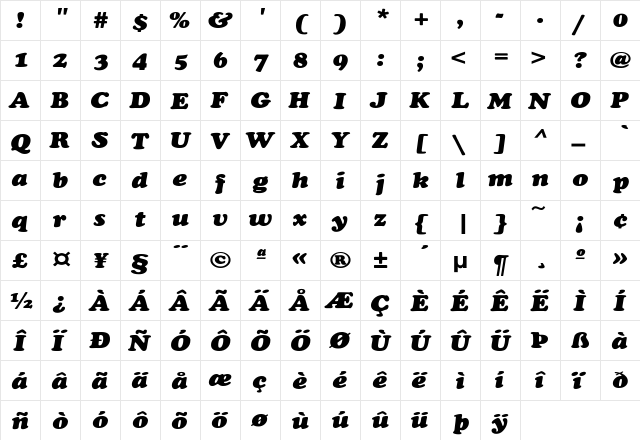
ChaceyExt-Heavy-Italic Regular
Design Context for ChaceyExt-Heavy-Italic Typeface
ChaceyExt-Heavy-Italic offers clean, dependable letterforms without strong stylistic allegiance, making it a practical choice for designers who need flexibility. Its italic angle brings a sense of urgency and motion to the letterforms.
Pro Tip: Try ChaceyExt-Heavy-Italic for annotation and caption copy alongside an upright companion — the contrast in angle creates a dynamic but ordered typographic system.